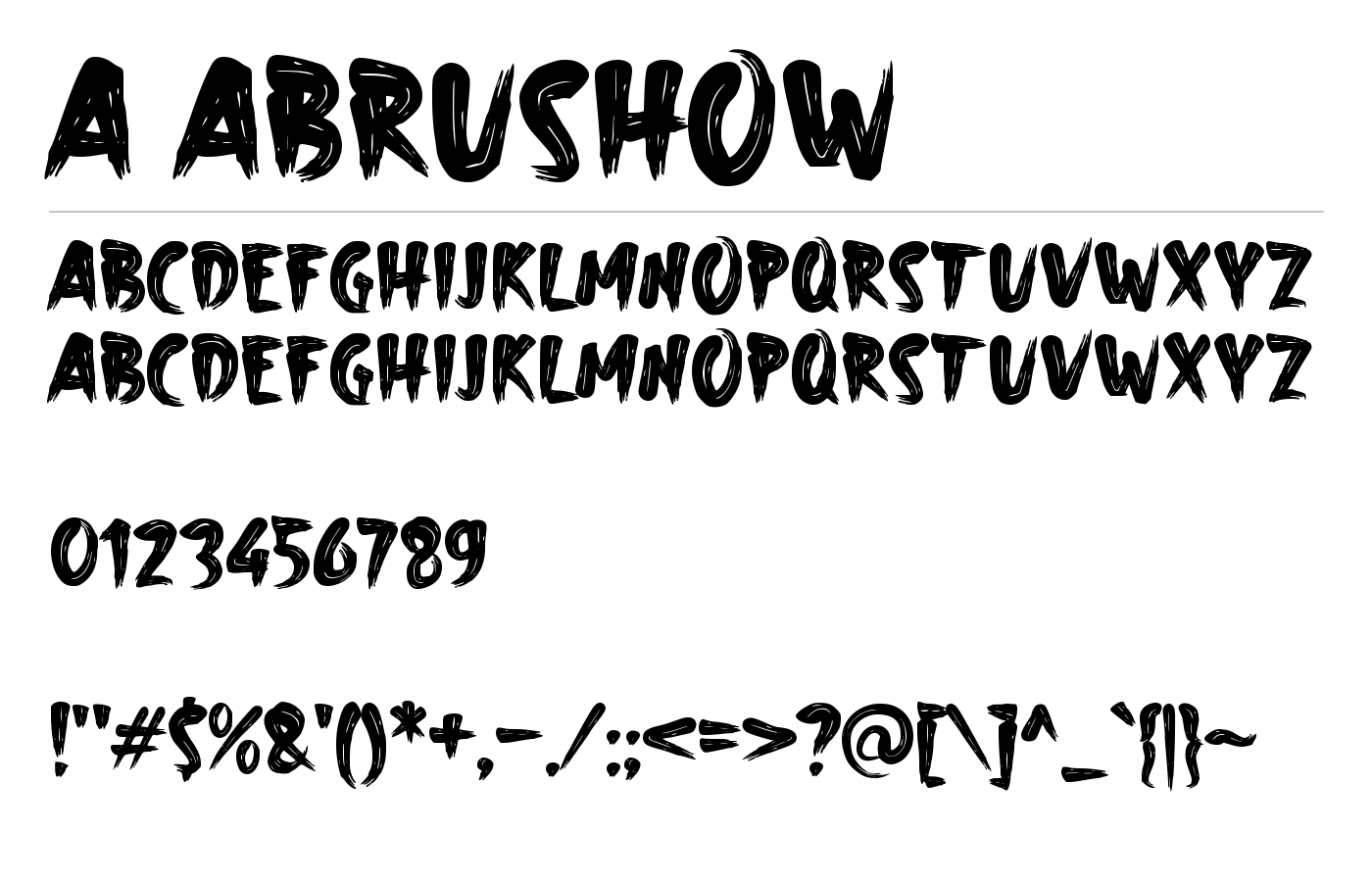
A Abrushow is a bold, brush-style display font featuring irregular, hand-painted strokes that give it a dynamic and energetic feel. Its uppercase letters and numbers have a rough, textured appearance with high contrast between thick and thin lines, making it ideal for eye-catching headlines, posters, and creative branding that seeks a playful or edgy vibe. This font works best in designs that want to convey personality and spontaneity with a strong visual impact.
a Abrushow Font
About a Abrushow Font